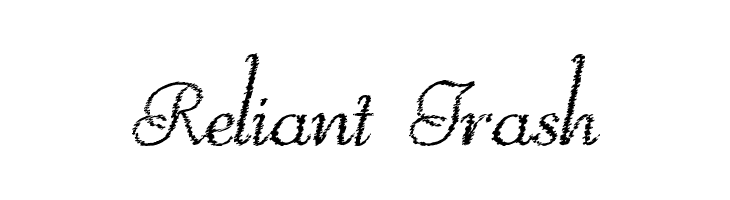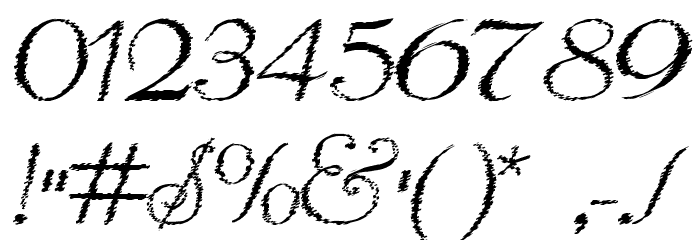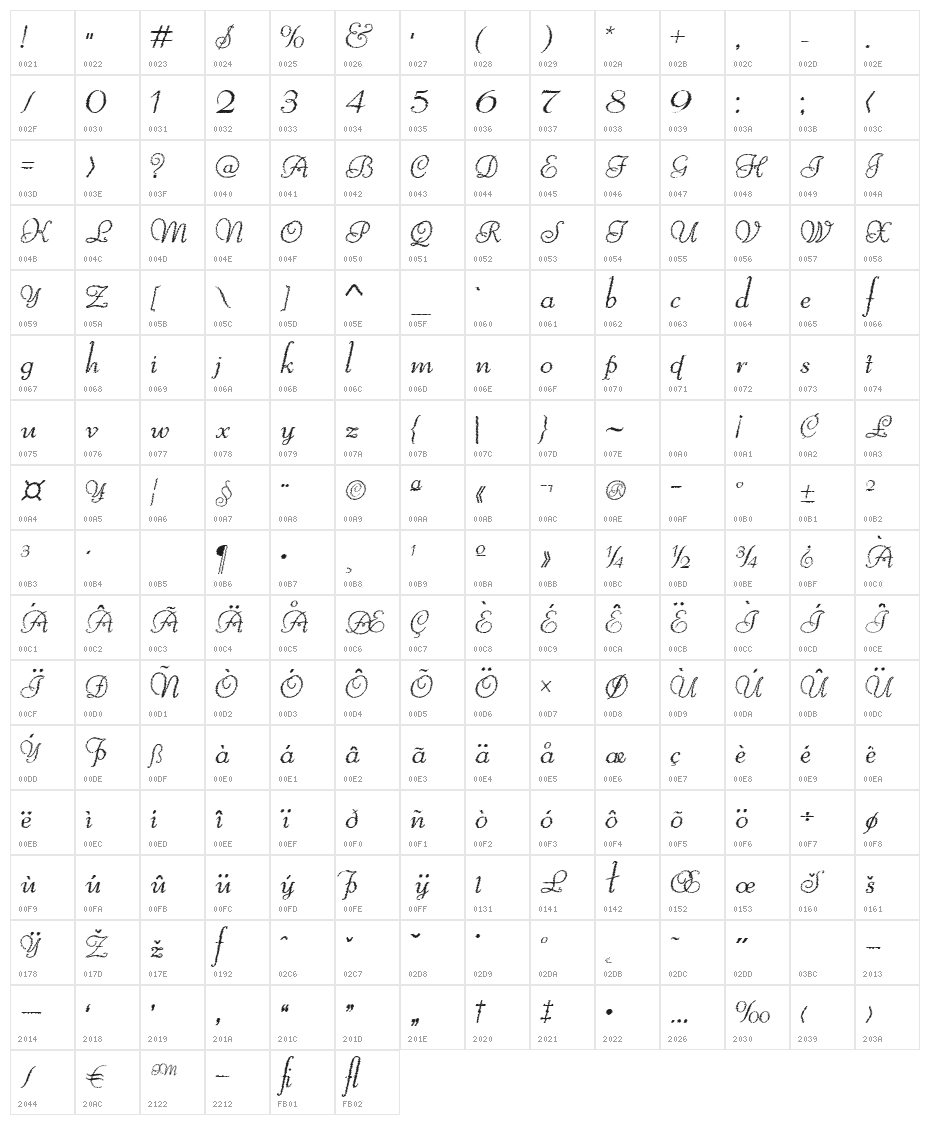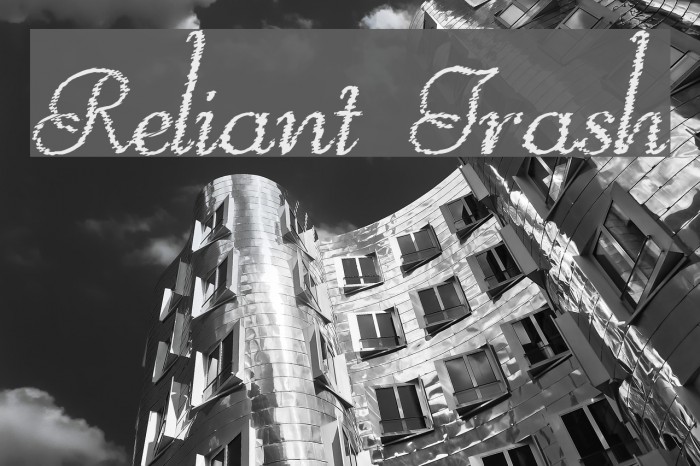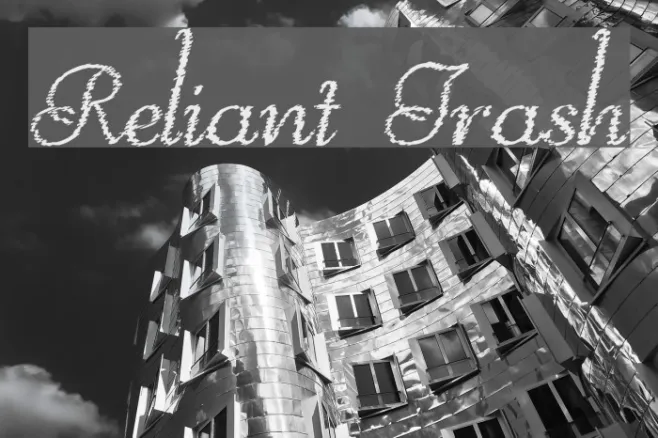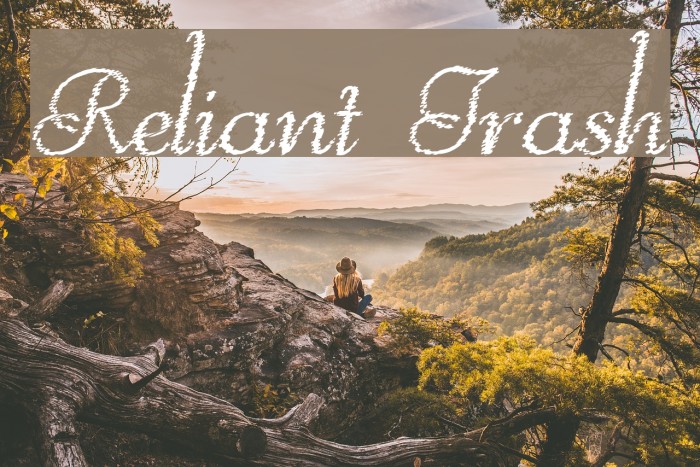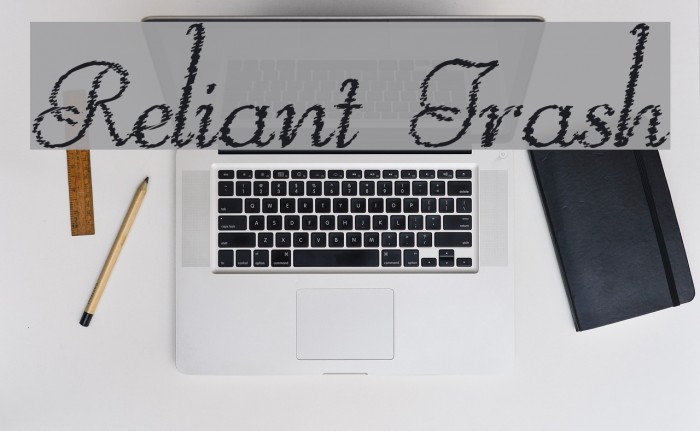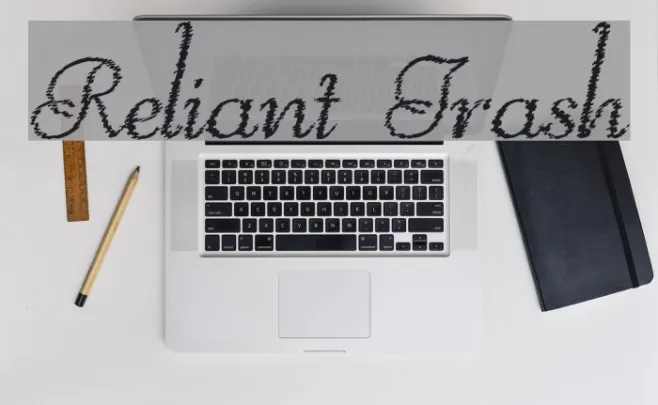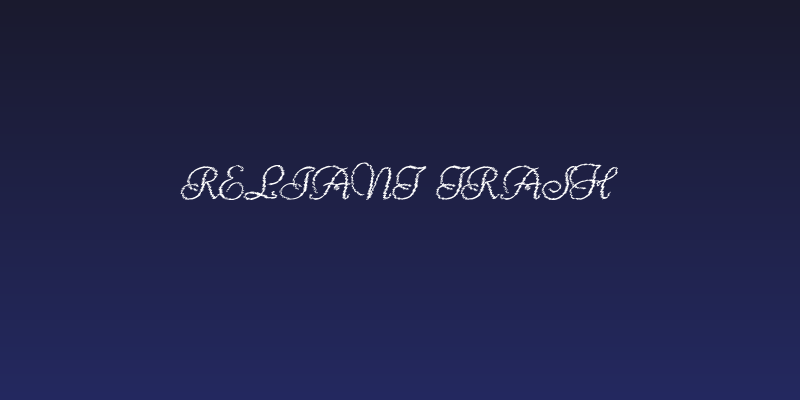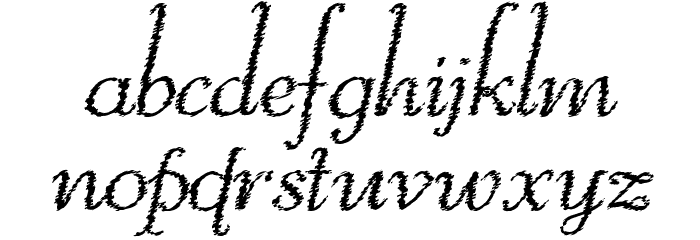
Reliant Trash Font
Reliant Trash Description
This font features an elegant and flowing script style, characterized by its cursive and handwritten appearance. The letters are connected, creating a seamless and fluid look that mimics traditional calligraphy. The strokes are varied, with a textured, almost distressed effect that adds a unique, artistic flair. This texture gives the font a vintage and handcrafted feel, making it stand out in designs that require a touch of sophistication and creativity. The numerals and special characters maintain this style, ensuring consistency across all glyphs.
| Proposed Projects | Ideal for wedding invitations, greeting cards, branding projects, and any design that requires an elegant, personal touch. |